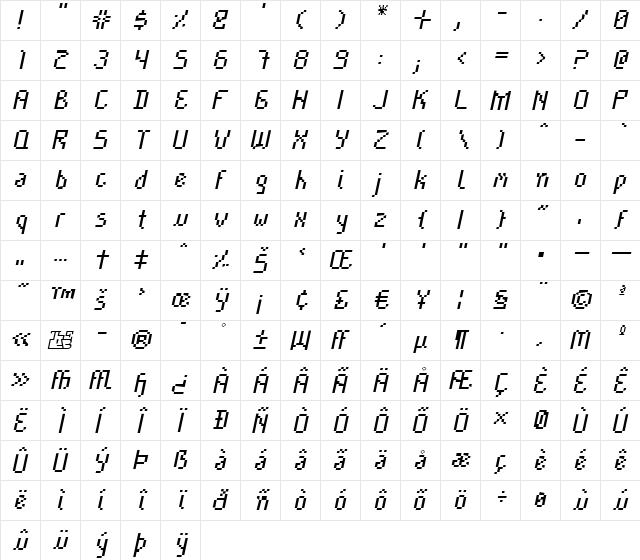
Cayetano Italic
Design Context for Cayetano Typeface
Cayetano takes a measured approach to typography — its balanced proportions and neutral character make it a reliable workhorse for both digital and print work. The slanted form adds forward momentum and visual energy.
Pro Tip: Try Cayetano for annotation and caption copy alongside an upright companion — the contrast in angle creates a dynamic but ordered typographic system.